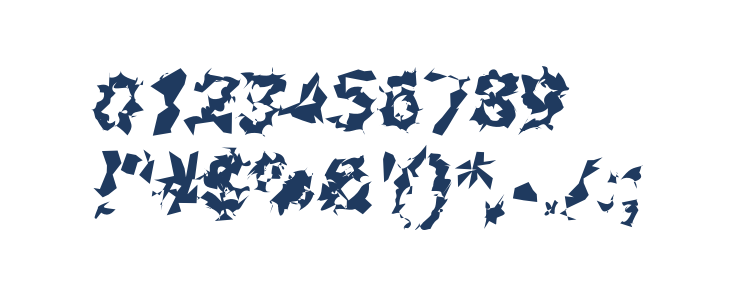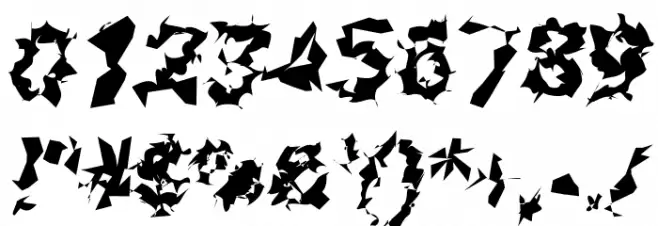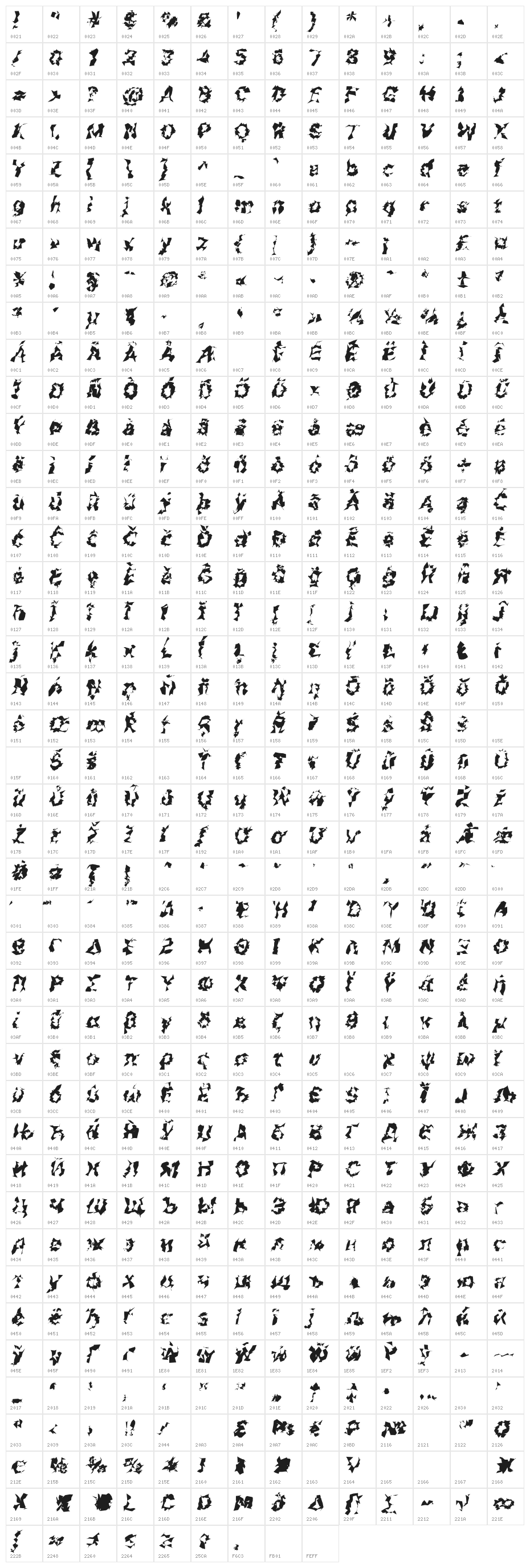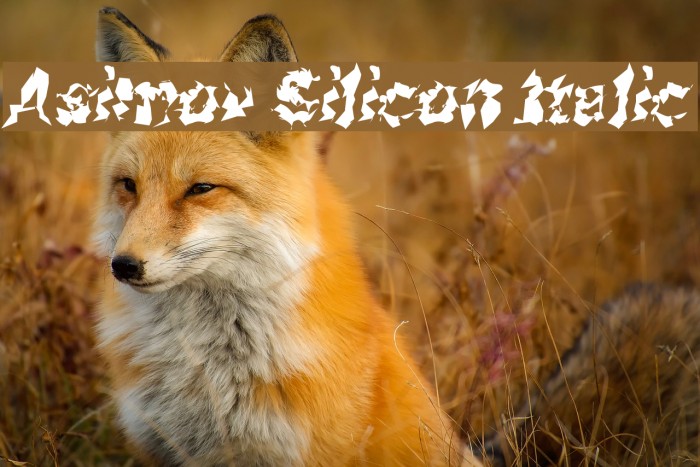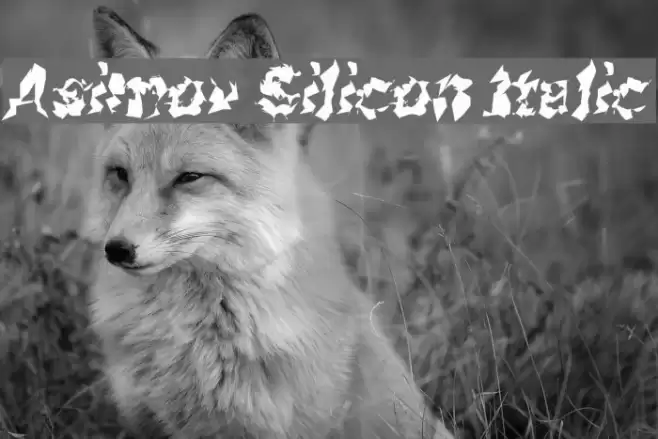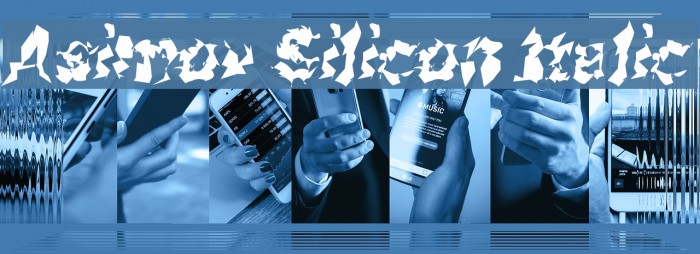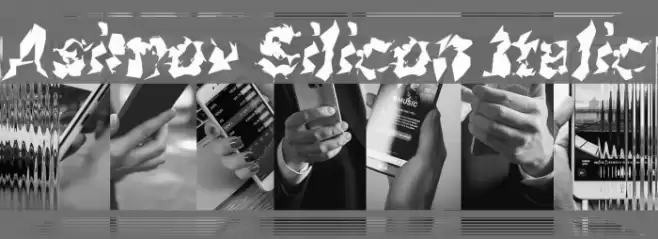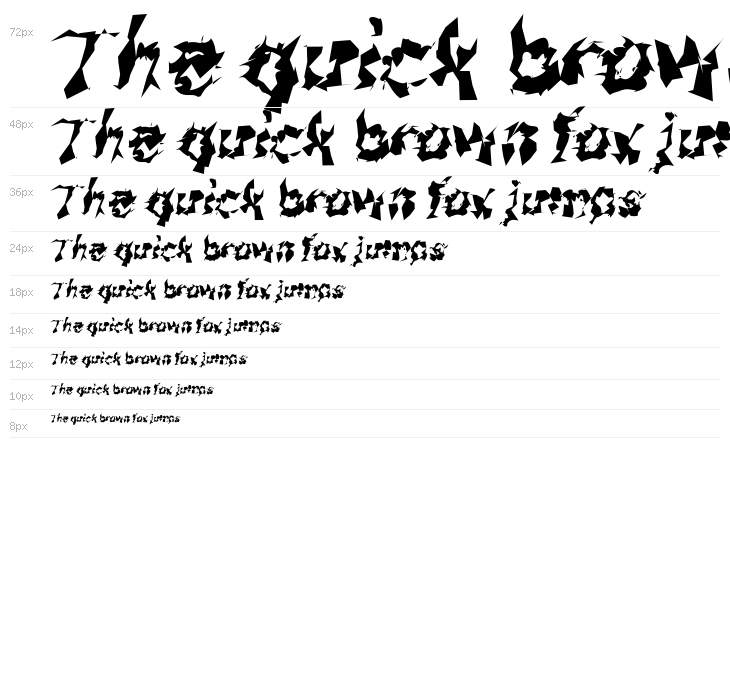
Asimov Silicon Italic Font
Asimov Silicon Italic Description
This font features a highly decorative and abstract design, characterized by sharp, angular shapes and fragmented forms. The letters appear as if they are constructed from shards or pieces, giving a futuristic and edgy appearance. The style is bold and eye-catching, making it suitable for attention-grabbing headlines or artistic projects. The irregular shapes and dynamic angles create a sense of movement and energy, while the overall aesthetic is modern and unconventional. This font is not suited for body text due to its complexity and unique design.
| Overall Style | Modern, Futuristic, Abstract |
| Use Case | Headlines, Logos, Artistic projects |
| Proposed Projects | Ideal for sci-fi themed posters, album covers, video game titles, and avant-garde branding. |